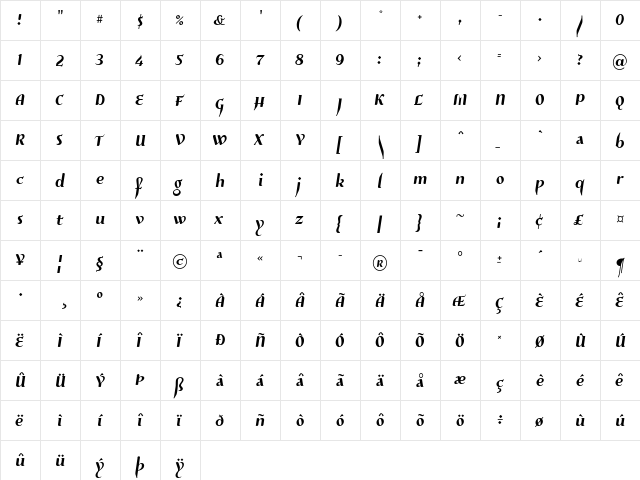
Risaltyp Medium
| Foundry | gluk |
| Designer | gluk |
Design Context for Risaltyp Typeface
Risaltyp is a composed and adaptable typeface that performs quietly and consistently across a wide range of design contexts.